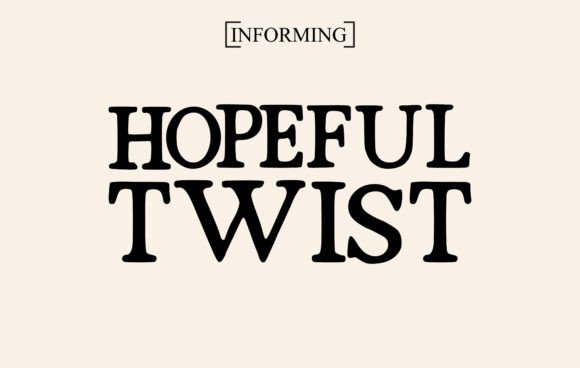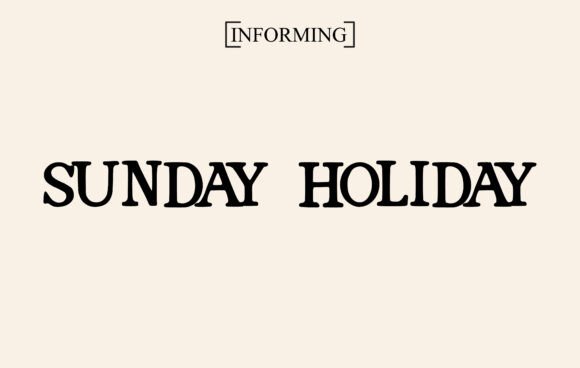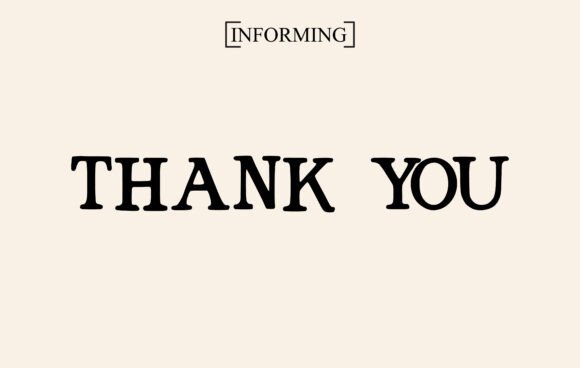
Hopeful Twist Font
About the Hopeful Twist Font
The Hopeful Twist Font is here to transform your projects with its distinctive character and style. This font is designed to be a true favorite and it has the potential to take your creative ideas to the highest level
Hopeful Twist’s playful, yet legible nature makes it ideal for headlines, short-form text in branding materials, and eye-catching social media graphics. It works well for packaging design where a friendly and approachable aesthetic is desired. However, its distinctive character may not be suitable for large blocks of body text or UI elements requiring high readability at small sizes.
Consider pairing Hopeful Twist with a clean sans-serif like Lato for a balanced and modern feel, or a classic serif such as Garamond for a touch of elegance. For a more playful approach, a handwritten script font could add a whimsical counterpoint.
The font projects a friendly and optimistic personality, making it a strong choice for brands focused on happiness, childhood, or community engagement. Avoid using it where a serious or sophisticated tone is paramount.